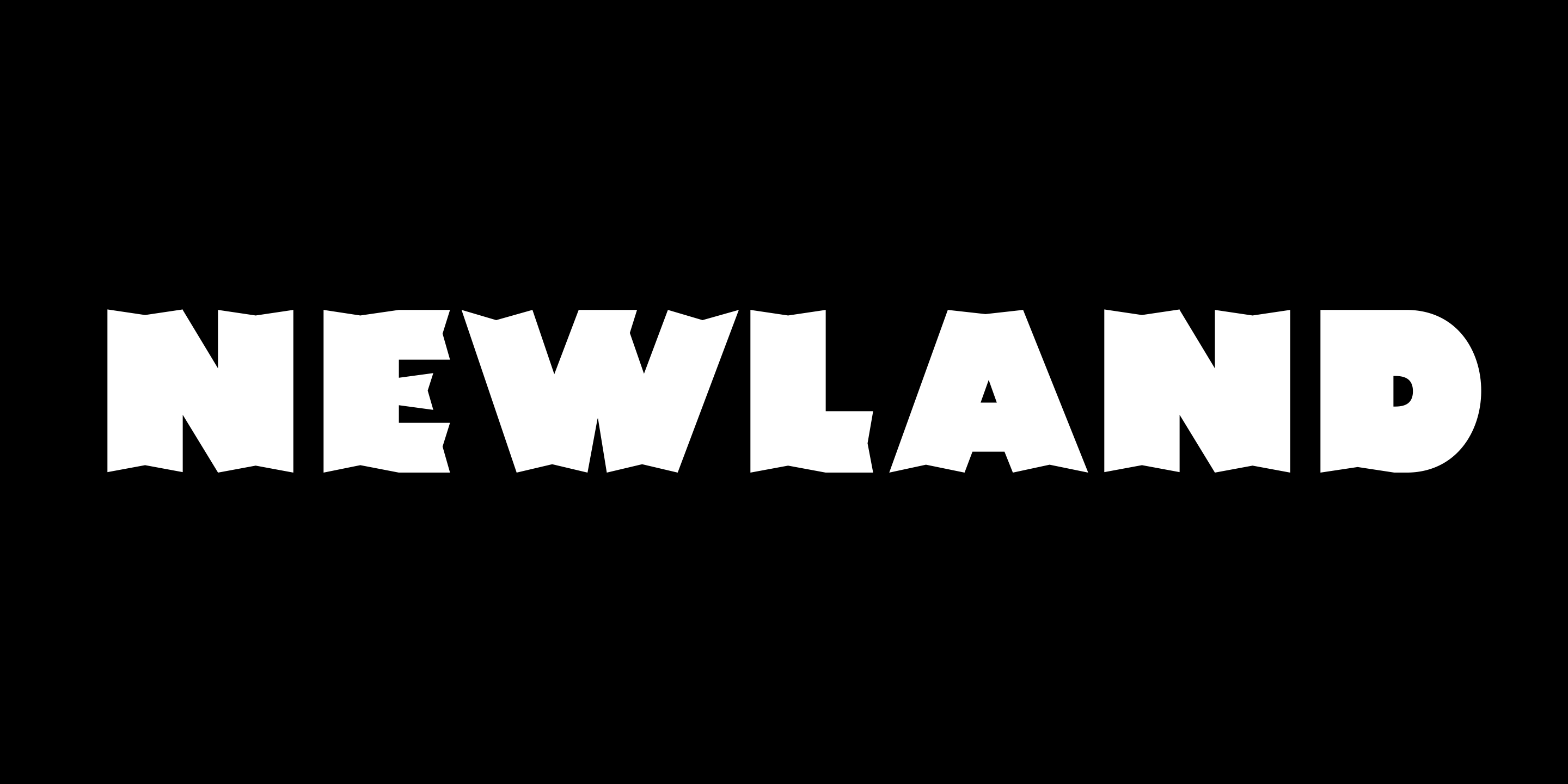
Newland
Regular
Rounded
Rough
Neuland inspired font
Newland
Designed by Resistenza Type FoundryNewland is a blocky typeface inspired by Rudolf Koch’s calligraphic Neuland.